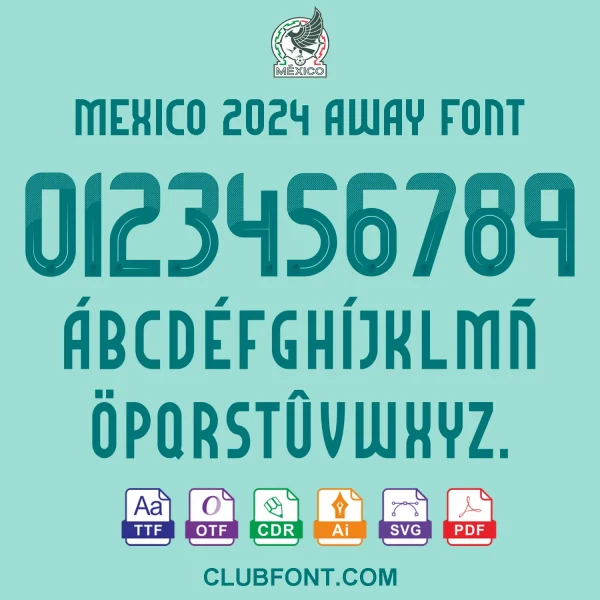
Official-style Mexico 2024 Copa América font pack — TTF & OTF installable on PC/Mac, plus CDR / PDF vector files for Illustrator & CorelDRAW. Match the Adidas Mexico 2024 home & away jersey name/number styling. Instant digital download.
Mexico 2024 Font Pack for Copa América
Create authentic-looking custom jerseys with this exclusive Mexico 2024 Font bundle. Designed to replicate the official Adidas typography used in the 2024 Copa América, this kit is perfect for fans who want to add their name or a player’s name to a custom shirt. Whether you are crafting a full DIY kit or just need the perfect Mexico 2024 number set, this package has everything required for professional results.
• Officially inspired styling matching the Mexico 2024 Copa América kits.